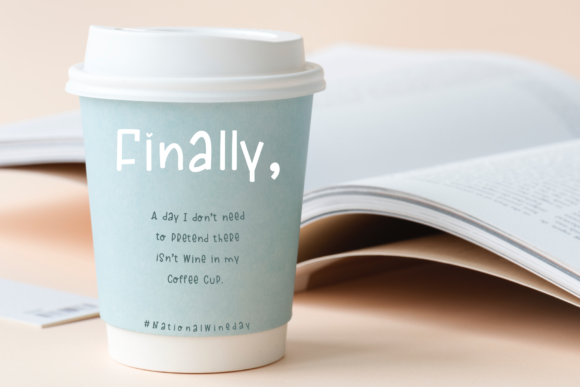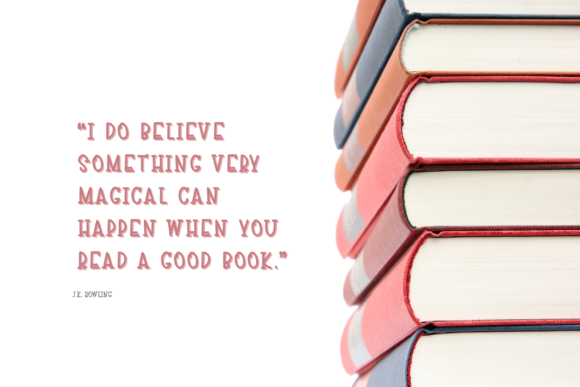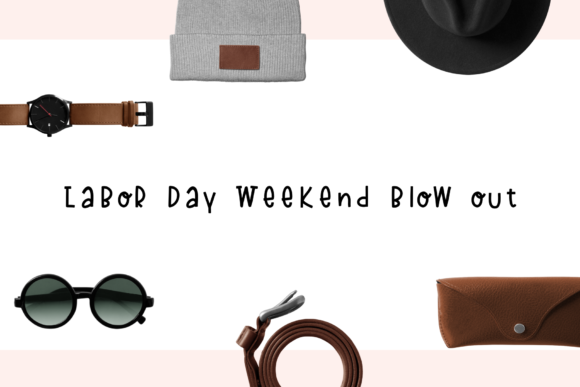
Introduction to Peachful Font
Remember that moment when you were working on a DIY project, and you needed that perfect font to give it a personal touch? For many designers, that moment is a constant quest for the right design resource. If you’re one of them, you’re in luck! Today, we’re excited to introduce you to the Peachful Font, a stunning handwritten font that will elevate your creative project to new heights.
The Peachful Font is the result of a beautiful pairing between a brush pen and pencil, giving it an endearing and authentic look that’s hard to resist. Its high-quality design makes it a valuable asset for any designer looking to add a personal touch to their work. With its transparent background, you can easily overlay it on any design, making it a versatile design resource for any creative project.
Key Features of Peachful Font
- Peachful Font is a high-quality design resource ideal for creative projects requiring a unique touch.
- This beautiful font features a transparent background, allowing for effortless customization and blending with any design.
- One of the unique characteristics of Peachful Font is its elegant and sophisticated design, perfect for creating a professional and refined look in any creative project.
- Peachful Font is a valuable addition to any design library, providing a versatile and stylish solution for designers seeking a high-quality font for their next project.
Honest Review: Peachful Font
As a designer, I’m always on the lookout for high-quality design resources that can elevate my creative projects. The Peachful Font is one such resource that caught my attention, and I’m excited to share my honest review with you.
- Clean and elegant design: The Peachful Font features a beautiful, hand-drawn design that is perfect for any creative project that requires a touch of elegance.
- Limited character set: The Peachful Font has a limited character set, which may not be suitable for projects that require a wide range of characters.
- Not suitable for large text: The font is best used for small to medium-sized text, as it may not be legible at larger sizes.
Overall, I’m impressed with the Peachful Font’s design quality and versatility. While it has some limitations, it’s a great resource for designers who want to add a touch of elegance to their creative projects.
For the most out of the Peachful Font, use it for headings and titles to add a touch of elegance to your design. Common use cases include logos, brochures, and social media graphics.